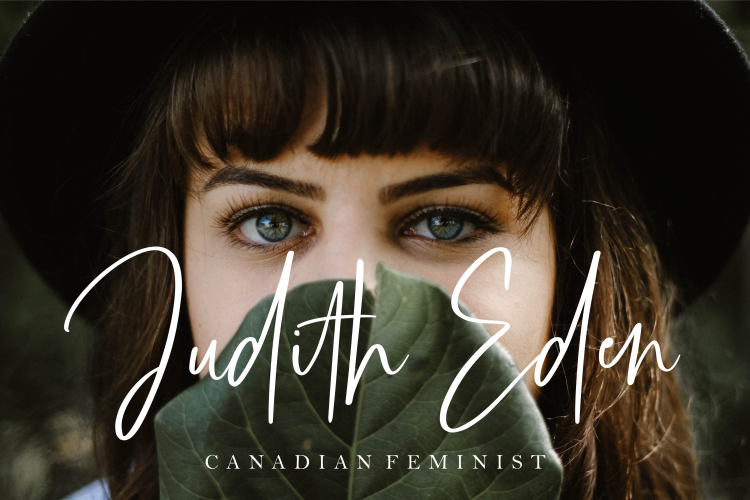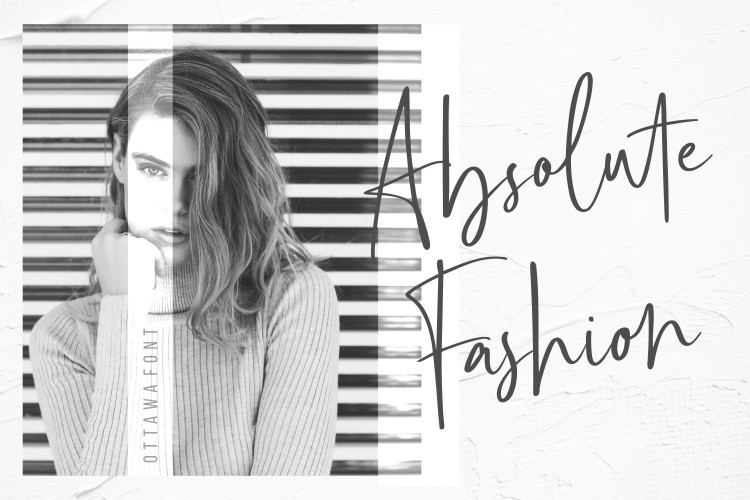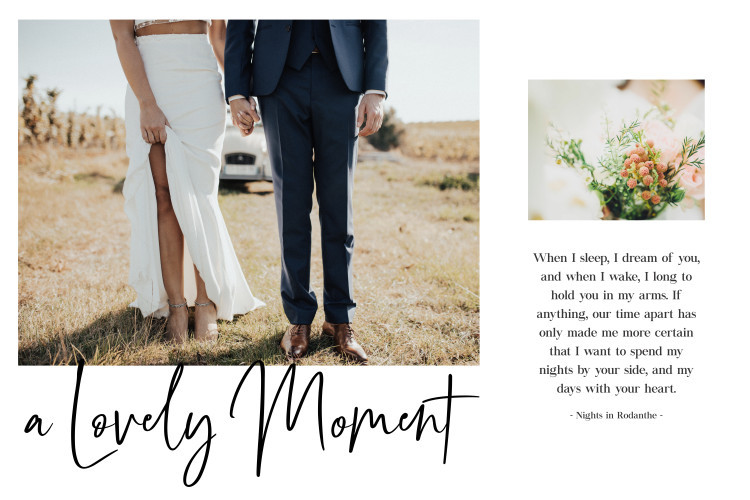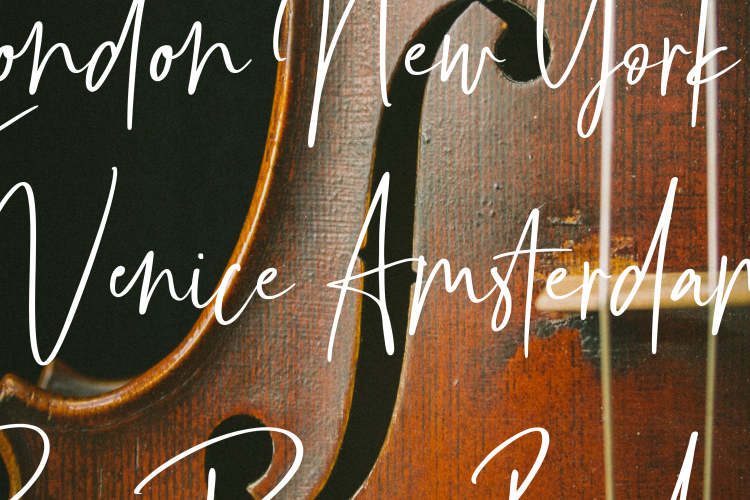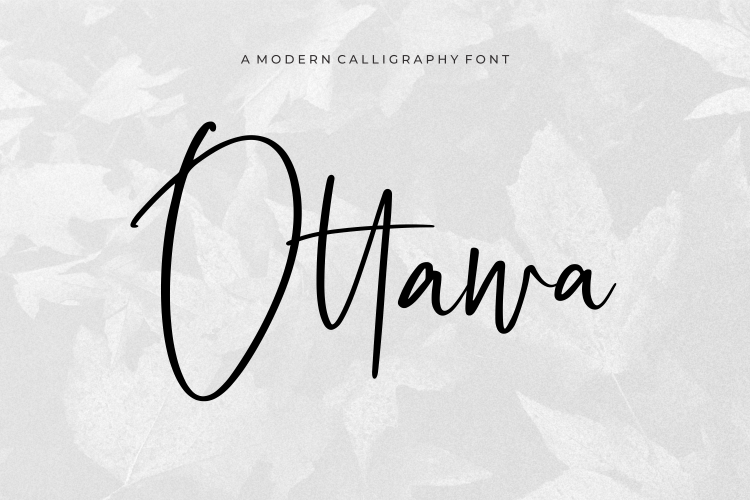
Ottawa Script Font
This is a sleek modern calligraphy signature script that comes with two lowercase stylistic letter sets, premade beginning and ending swashes for uppercase. Say hello to Ottawa Font. It’s designed and shared by Letteralle. This font expresses natural hand scratches. Ottawa comes with lowercase alternate, 58 ligatures, and also supports multi language. With letters, Ottawa is perfect for product packaging, branding project, megazine, social media, or just used to express words above the background.